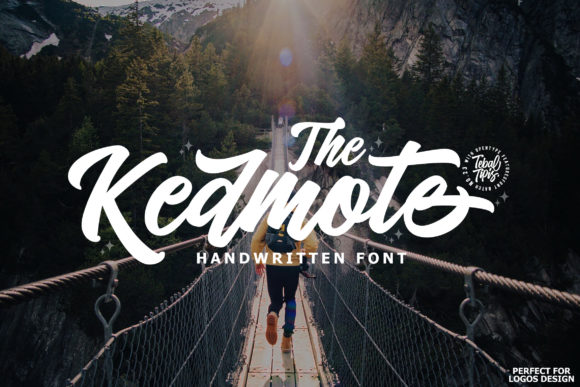
Welcome to the enchanting world of The Kedmote Script Font, a captivating handwritten masterpiece designed to elevate your creative endeavors! Step into a realm of boundless possibilities, where your words dance and flow with unmatched elegance and charm.
The Kedmote Script Font is the perfect companion for your imagination, whether you're a seasoned designer or just starting your artistic journey. Its meticulously crafted curves and stylish personality bring a touch of magic to every project, from logos and headlines to badges, packaging, and more.
Unleash your creativity and let The Kedmote Script Font take you on a journey of self-expression. Dive into a world of limitless possibilities, where your designs come alive with a unique and captivating touch. Experience the joy of creating masterpieces that leave a lasting impression.
With The Kedmote Script Font, you'll discover a world of beauty and elegance, where every letter tells a story and every word sings a song. Elevate your designs to new heights and captivate your audience with the allure of handwritten charm.
**Reasons why The Kedmote Script Font is the perfect choice for your next project:**
1. **Enthralling Charm:** The Kedmote Script Font possesses an undeniable charm that draws the eye and captivates the heart. Its intricate curves and graceful lines create a visual symphony that elevates your designs and leaves a lasting impression.
2. **Limitless Versatility:** From the delicate strokes of a wedding invitation to the bold statement of a brand logo, The Kedmote Script Font adapts seamlessly to a wide range of projects. Its versatility makes it the perfect choice for any creative endeavor, allowing you to explore new horizons and push the boundaries of your imagination.
3. **Effortless Elegance:** The Kedmote Script Font effortlessly exudes elegance, adding a touch of sophistication to any design. Its carefully crafted characters and harmonious composition create a visually stunning aesthetic that commands attention and leaves a lasting impression.
4. **Unleash Your Creativity:** The Kedmote Script Font is more than just a font; it's an invitation to unleash your creativity and embrace new possibilities. Its fluid lines and expressive strokes encourage you to experiment, explore, and discover new depths of artistic expression.
5. **Make a Statement:** With The Kedmote Script Font, your designs will make a statement wherever they go. Its captivating charm and undeniable beauty will captivate your audience, leaving them spellbound and eager to learn more.